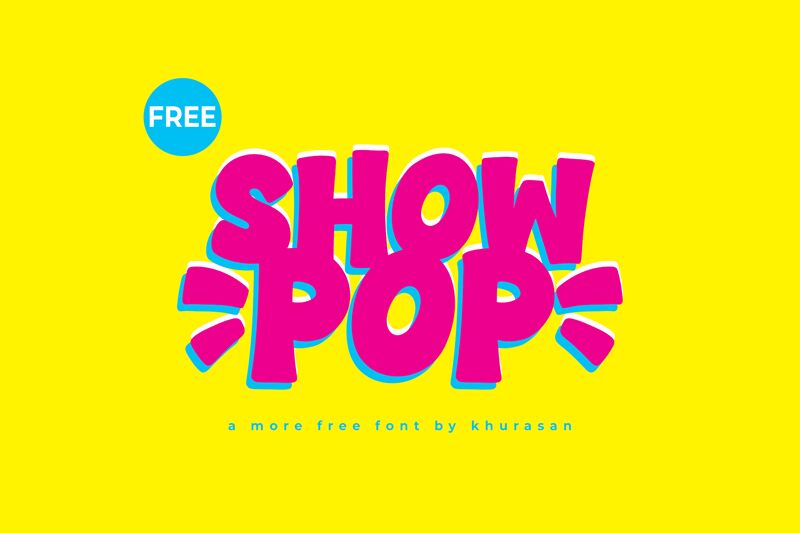
Showpop font family by Khurasan is a fun, eye-catching, cartoon free font family with an energetic and impactful design. Retro-inspired, Showpop boasts vibrant aesthetics and casual youthful vibes. Letters are bold with modern rounded edges, and the overall design exudes a cheerful and playful feel. The inclusion of dingbats is a cool and beautiful extra which designers can take advantage of.
Make the most of Showpop in your logotype, website headings, poster design, movie titles, magazine covers, social media design, typography art, T-shirt design, and more professional or personal application.